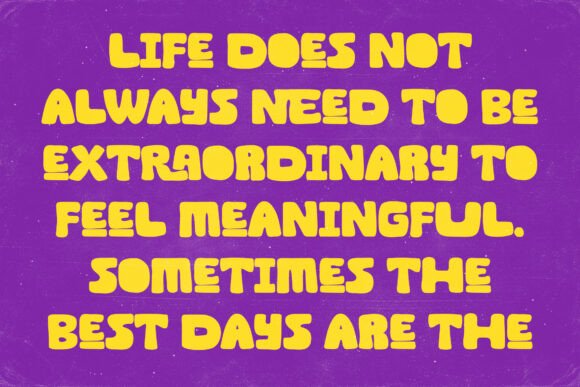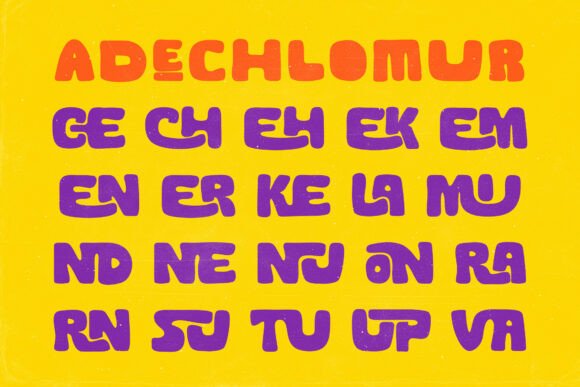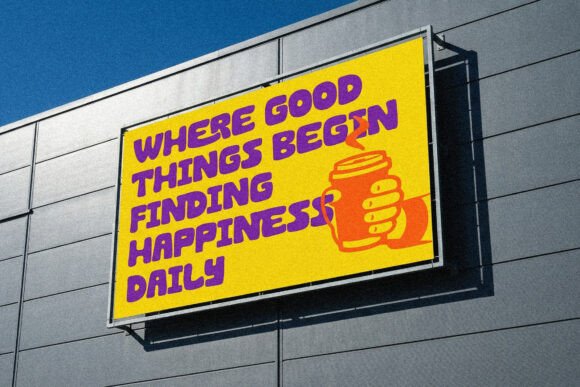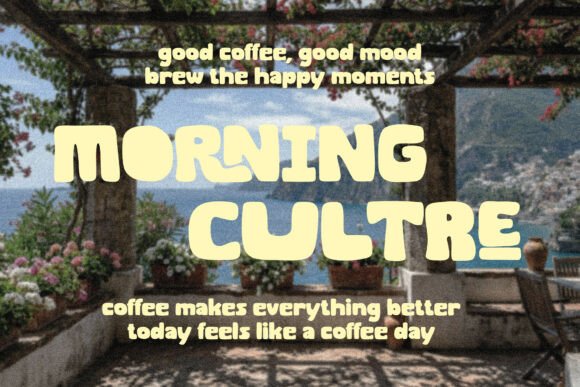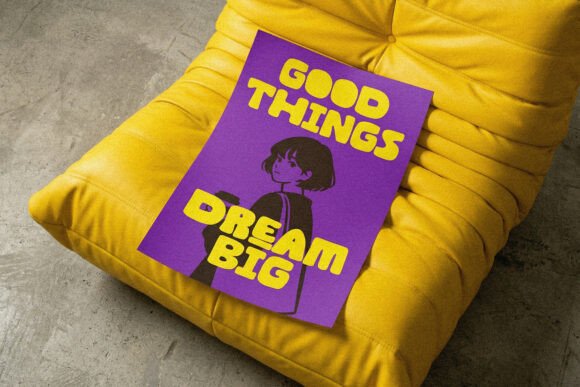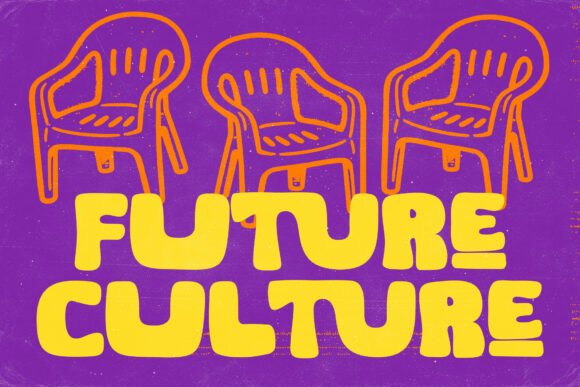
Introduction to Kanyon Sunny Font Font
Fonts play a crucial role in design, and the Kanyon Sunny Font font is a typeface that brings both character and versatility to any project. Whether you’re working on a branding project, a website, or a print design, the Kanyon Sunny Font font offers a unique style that can elevate your work.
| 📌 Font Name | Kanyon Sunny Font |
| 👤 Author | madjack.font |
Let me introduce you to my latest font creation, Kanyon Sunny is a bold, cheerful, and characterful display font.
Key Features of Kanyon Sunny Font Font
Why Choose Kanyon Sunny Font Font?
The Kanyon Sunny Font font is more than just a typeface – it’s a design tool that helps you communicate your message with style and clarity. Its unique character set and versatile design make it suitable for a wide range of applications, from elegant invitations to bold headlines.
With its carefully crafted letterforms and balanced proportions, the Kanyon Sunny Font font ensures readability and visual appeal across all mediums.
What makes Kanyon Sunny Font font special?
The Kanyon Sunny Font font stands out with its unique design, exceptional readability, and versatility across various design applications.